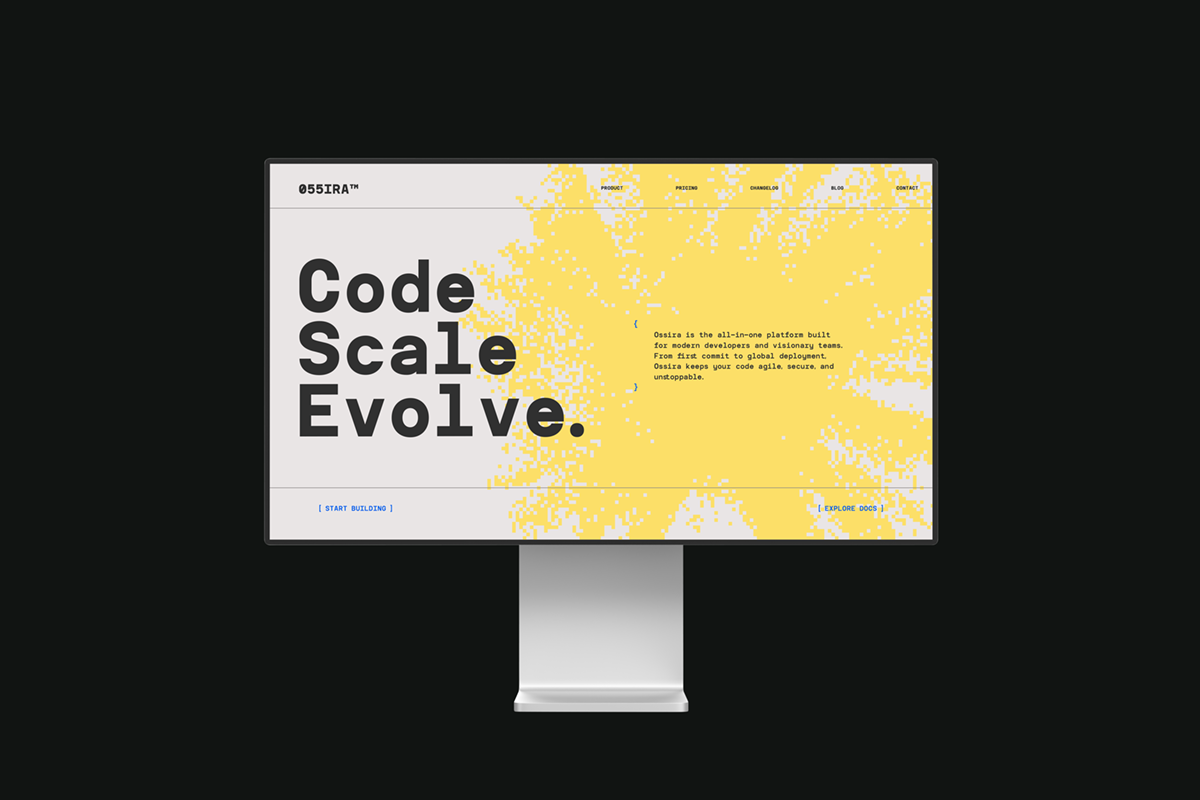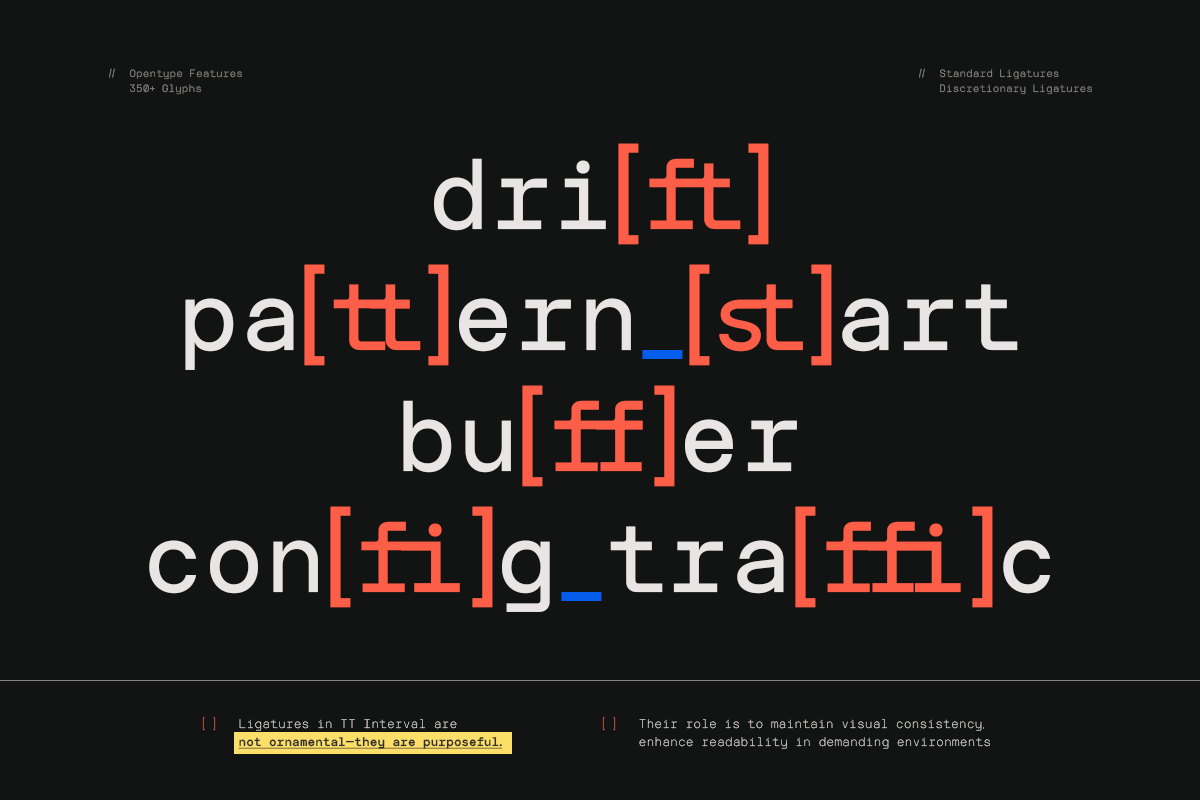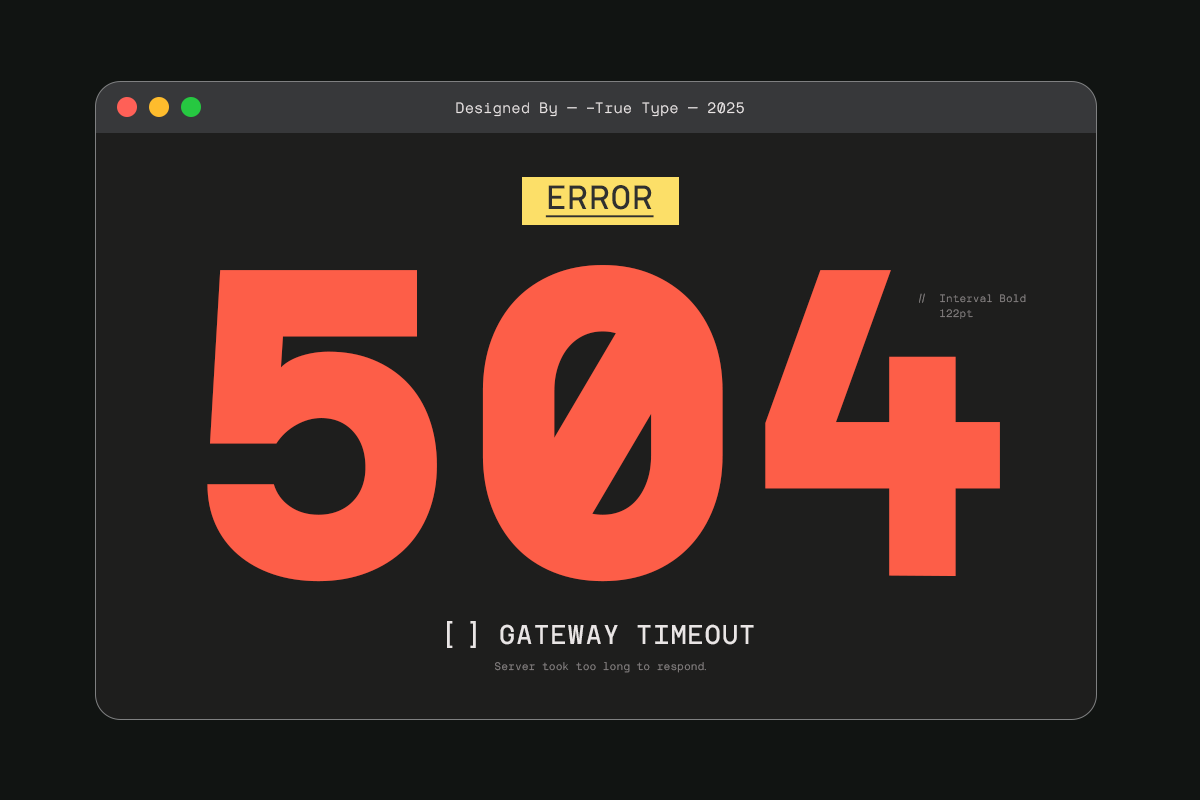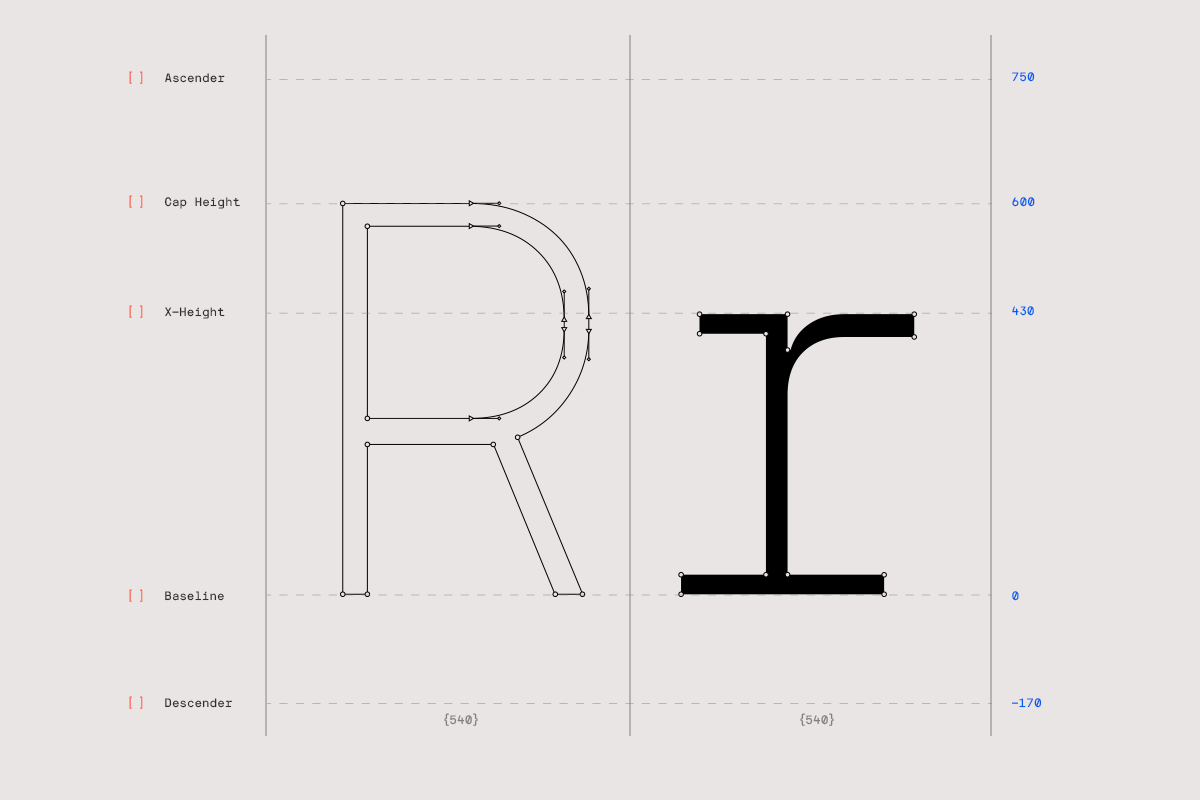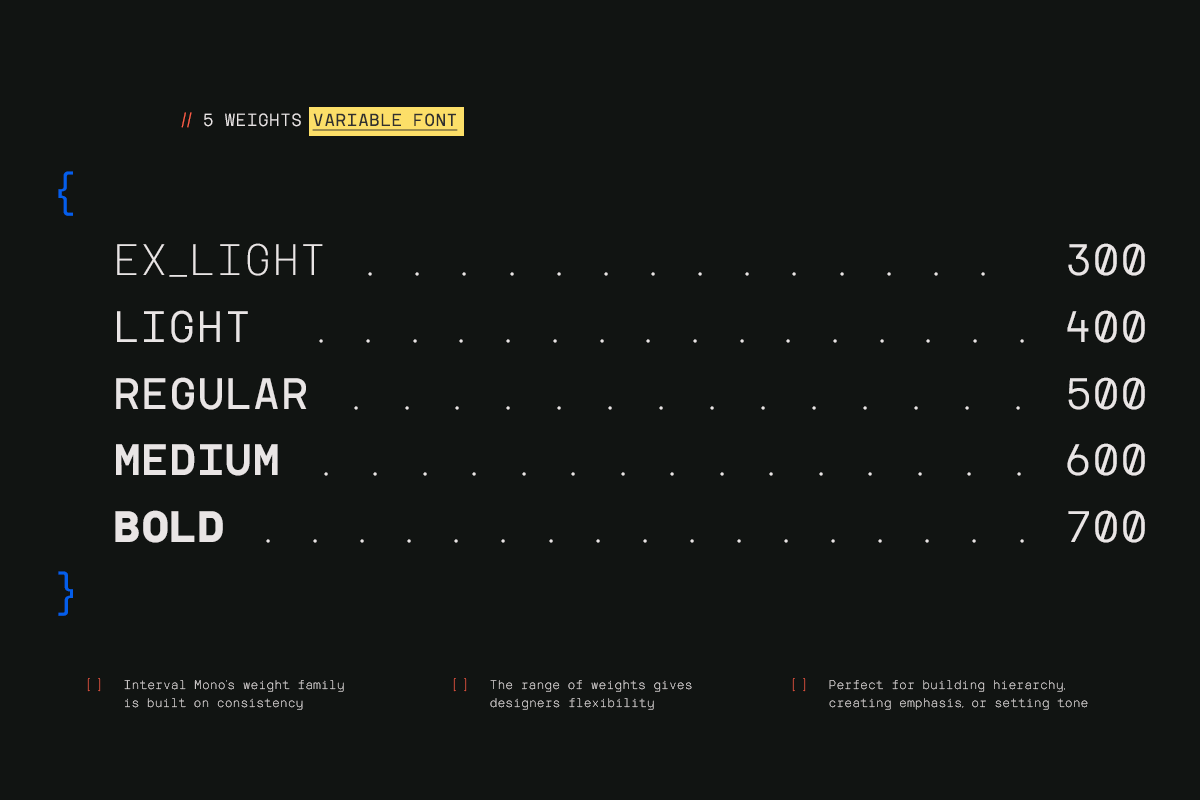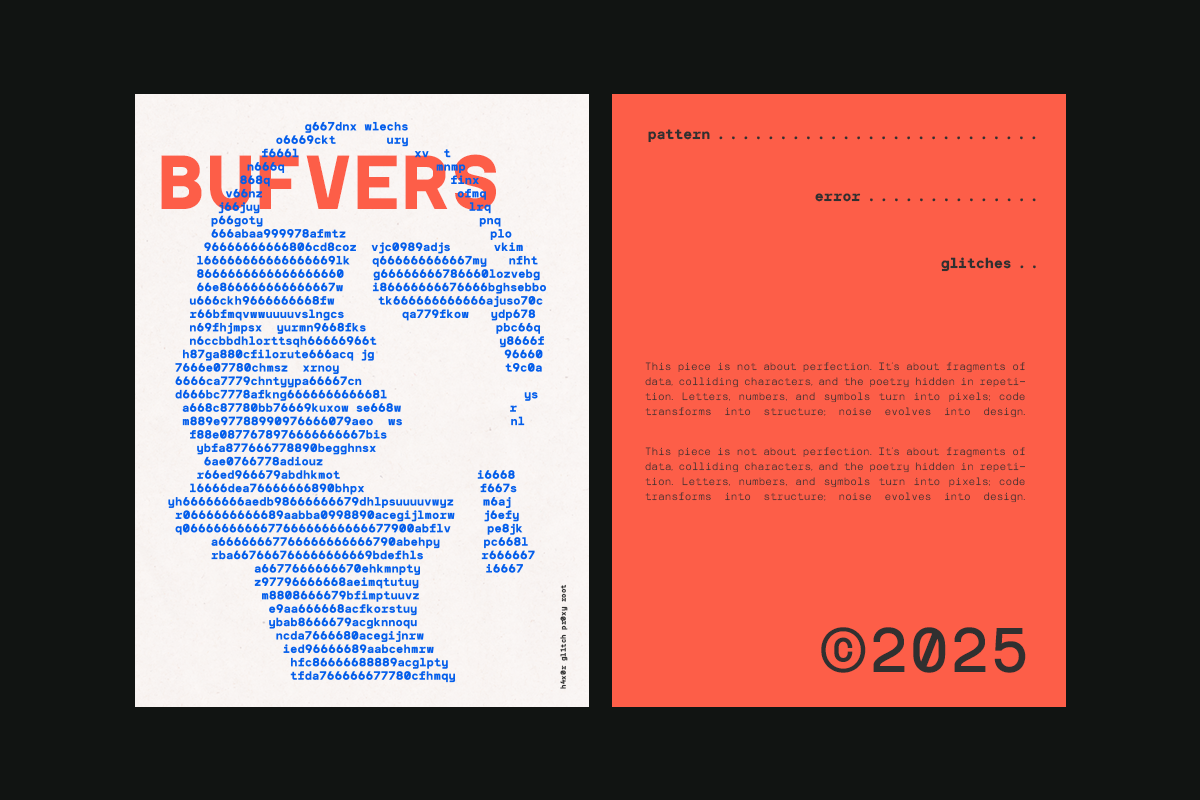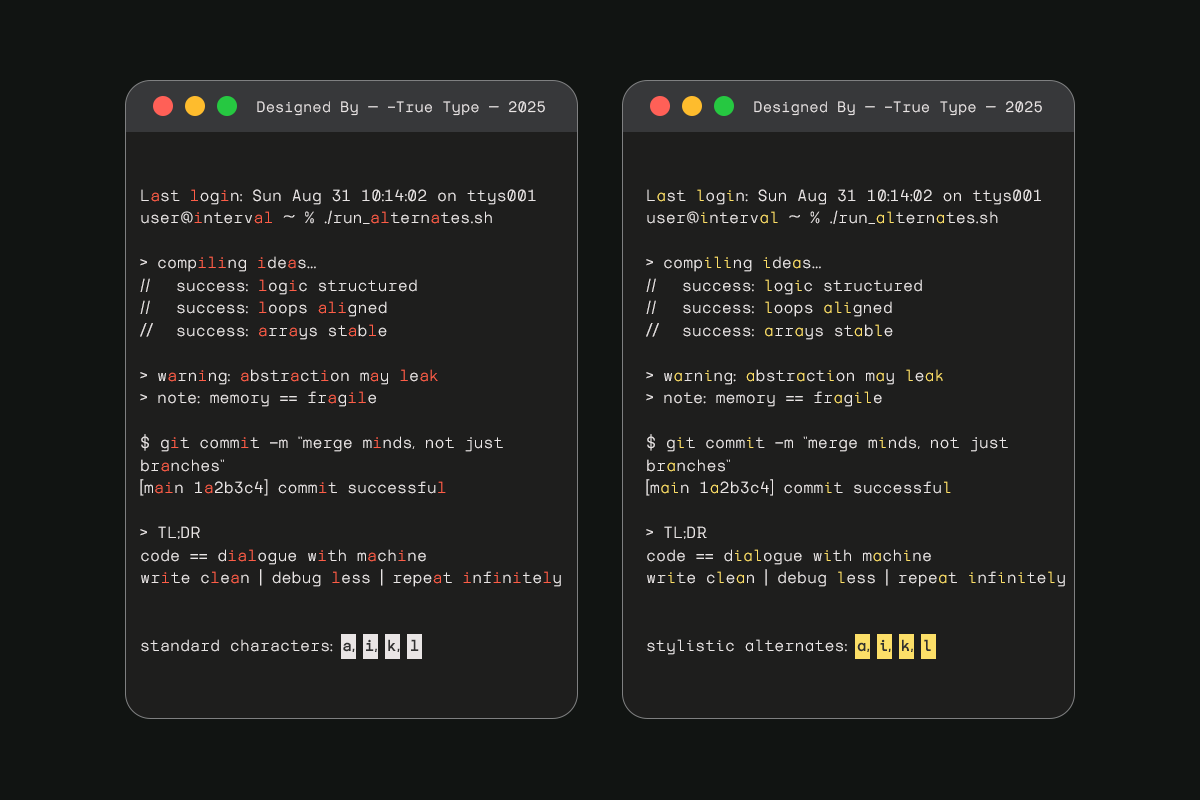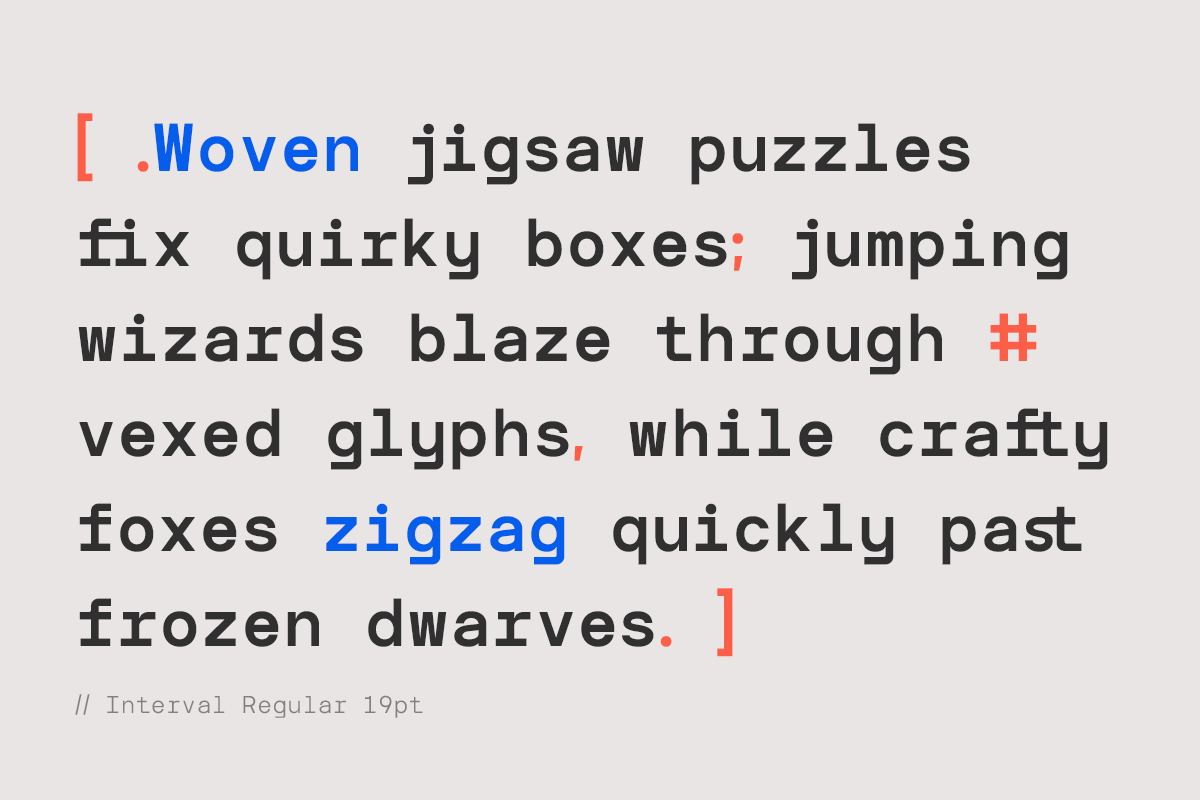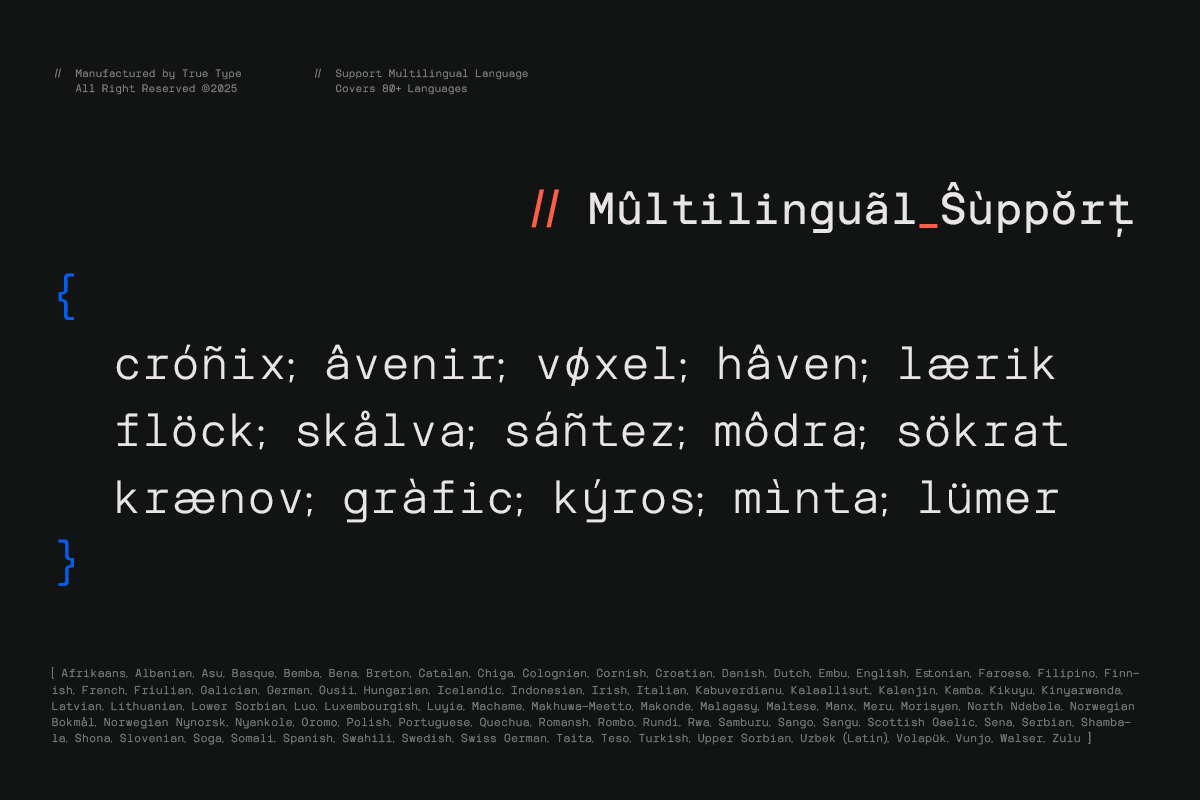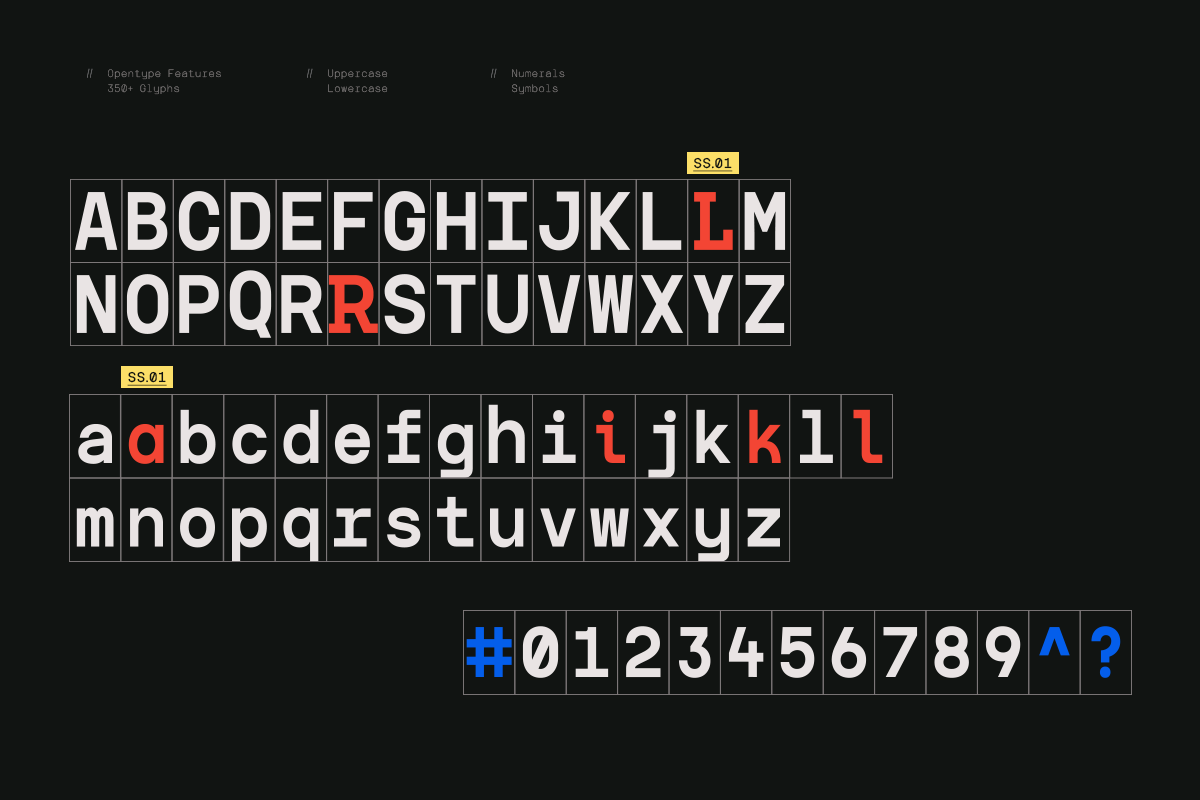
TRT Interval Mono Font
When I started working on TRT Interval, I was drawn to the quiet strength of simple leTRTerforms—particularly those found in classic monospace and geometric typefaces. Their clarity, structure, and rhythm inspired me to create something that felt equally balanced, but more adaptable for today’s design needs. With TRT Interval, I focused on consistent widths and clean lines, building each character with precision and restraint. While its foundation is rooted in geometry and a modular grid, subtle details in select glyphs help bring a human touch—making it feel less mechanical, and more approachable. The result is TRT Interval — a modern monospace sans serif designed for clarity, rhythm, and versatility. Whether used in branding, editorial layouts, user interfaces, or code, Interval delivers a strong typographic voice that’s both functional and refined.